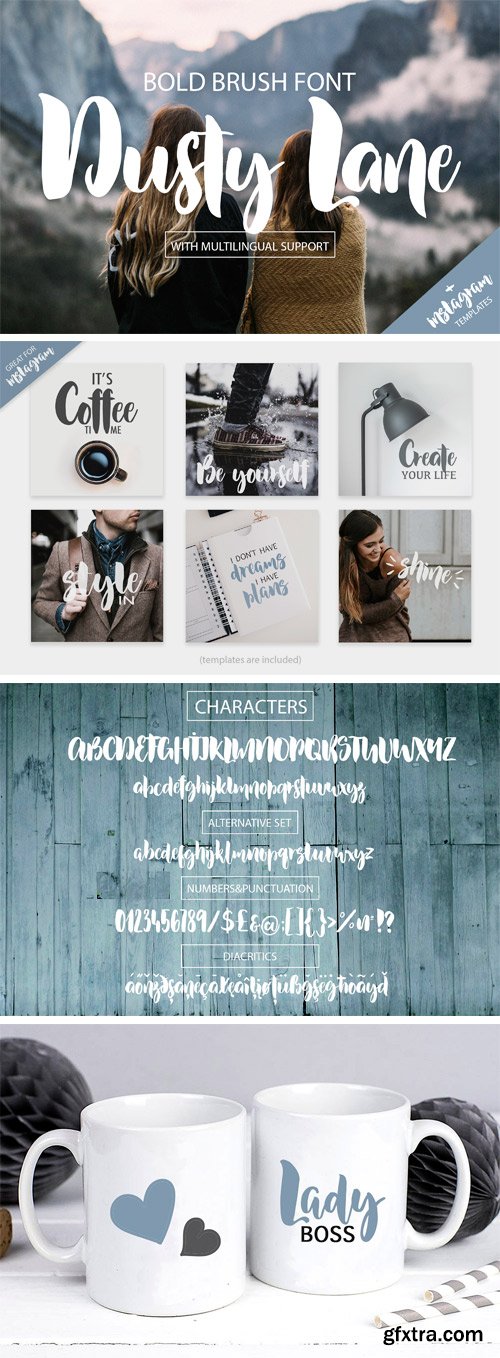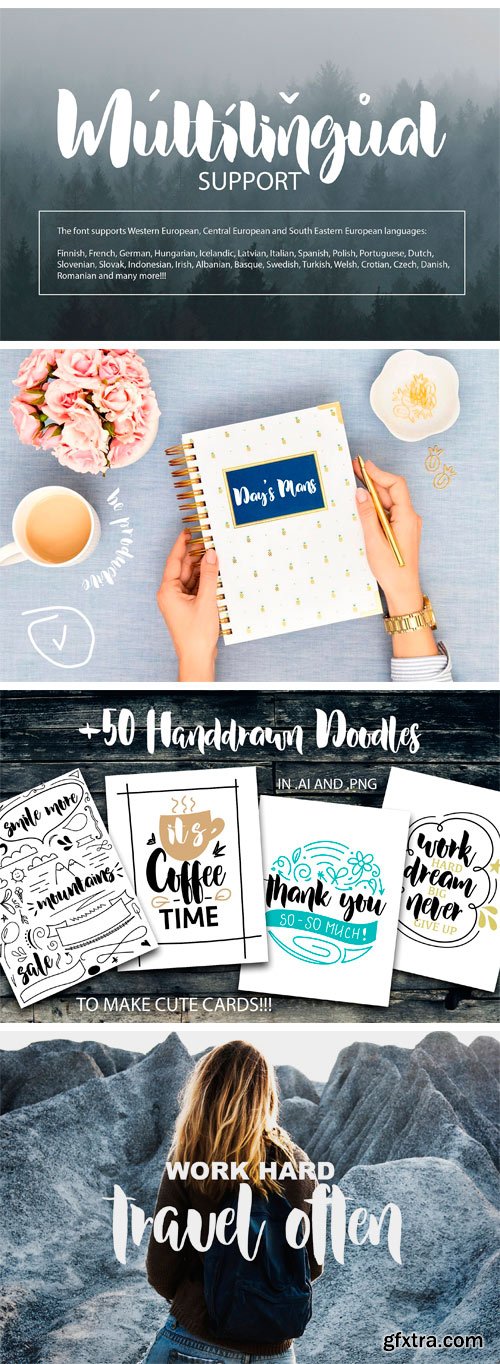
Dusty Lane is a bold condensed handwritten font with a unique character. It looks perfect on posters, wall prints, greeting cards, planners, food packaging, banners and so on. Besides that you can use it on social media and for your own branding - it will add unique handmade touch!